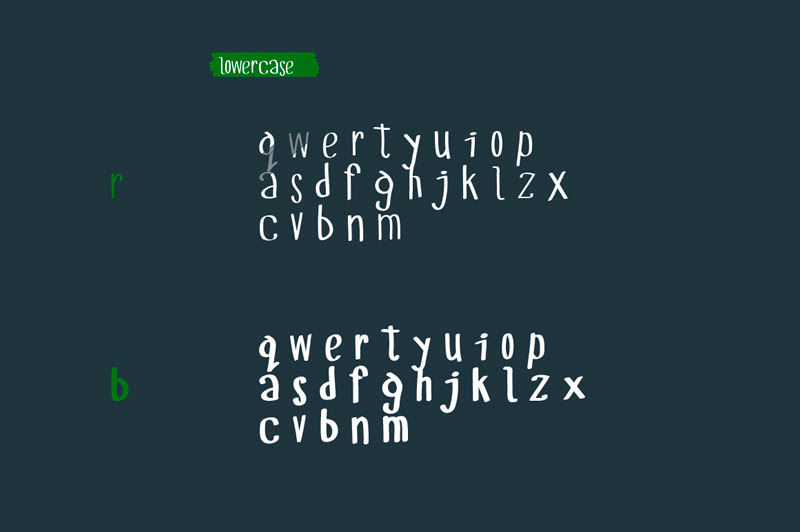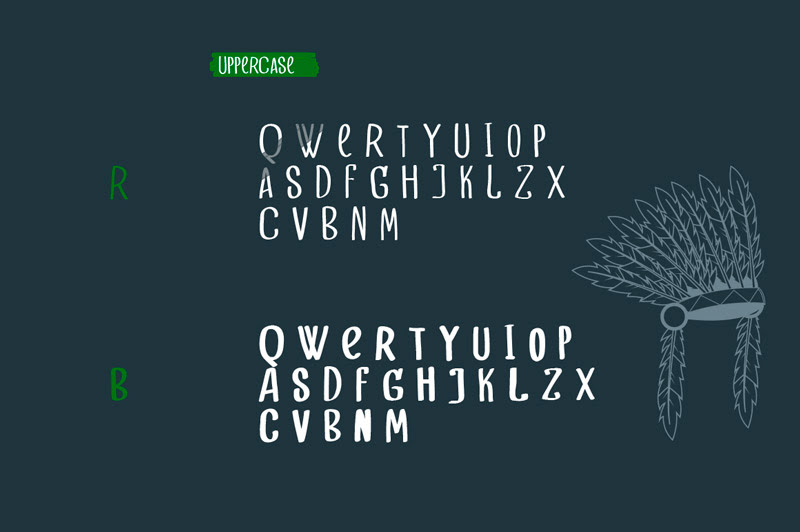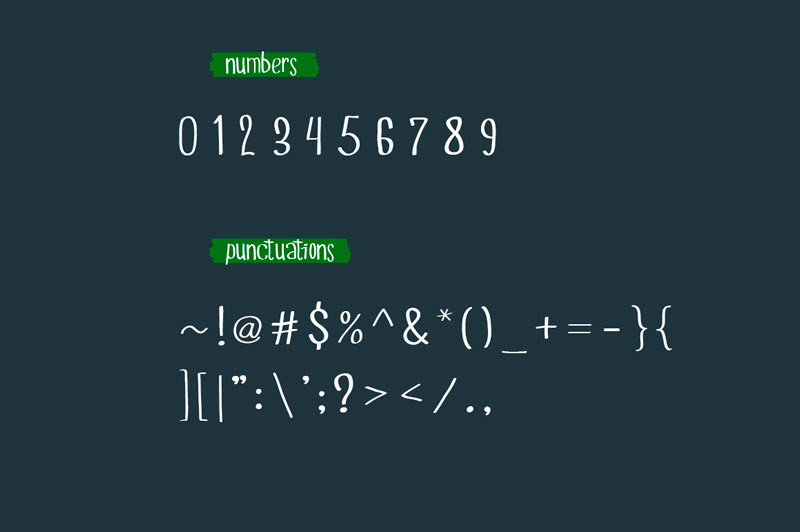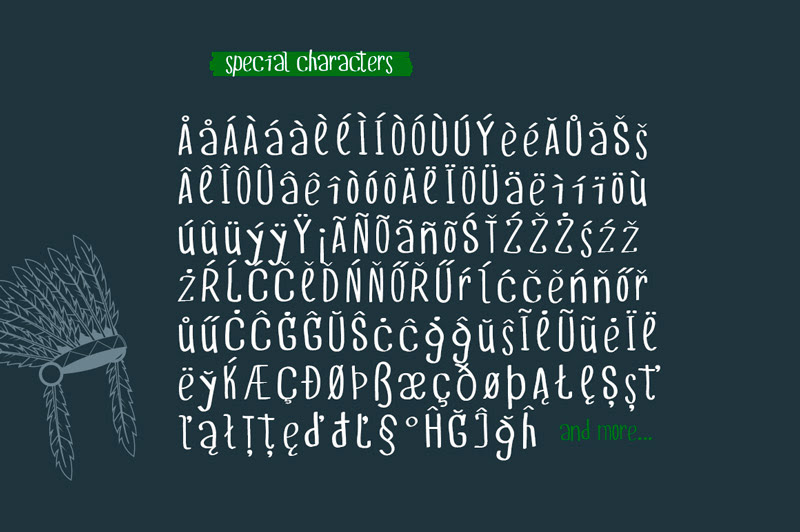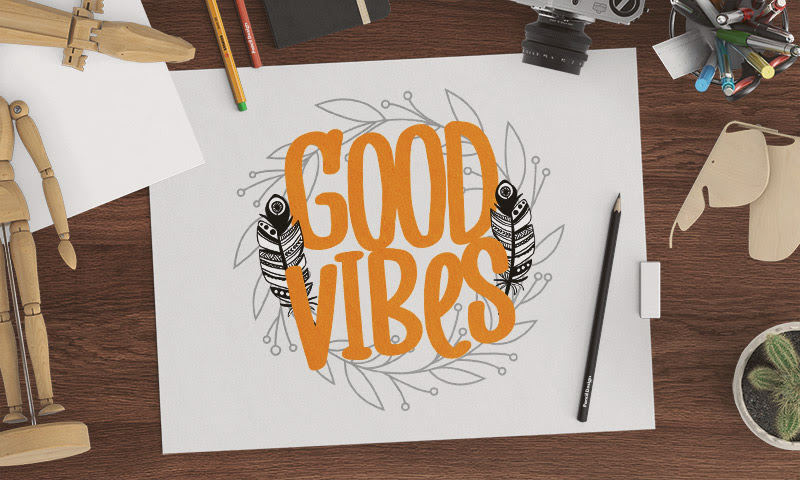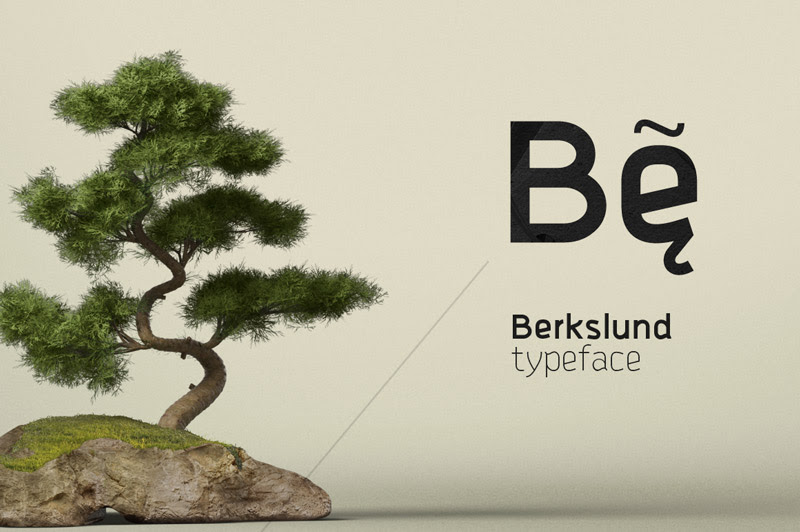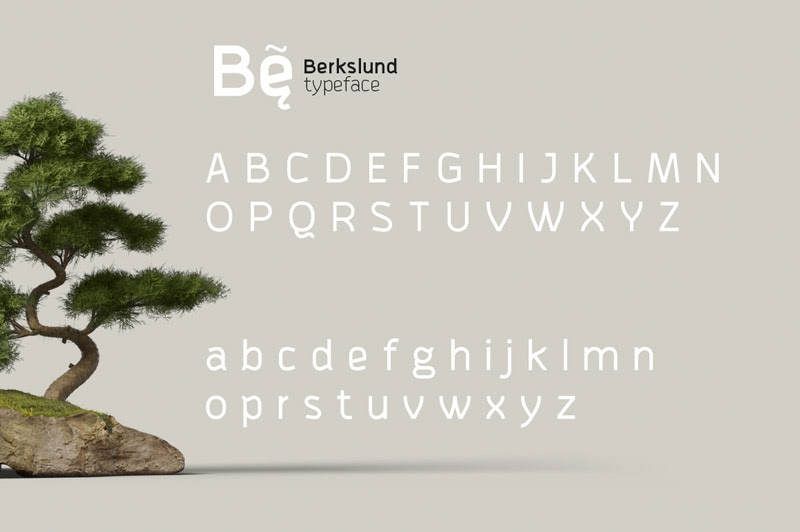
AUGUST BEST FONTS BUNDLE – WINTER BONUS !
Refresh your font library with this incredible August font bundle, featuring a special Winter Bonus! This collection is designed to make your projects feel fresh and exciting, no matter the season. You’ll receive 6 unique font families from NEWFACE. These include Appalachi, Asheron, Berkslund, Higenson, Kraftwied, and Sungent. Each family offers various weights, styles, and looks. Therefore, you gain immense variety for all your design needs.
Unlock 21 Unique Fonts in This August Font Bundle
Let’s explore some of the included fonts. Appalachi is an original hand-lettering typeface. It offers 8 different fonts, perfect for adding a personal touch. Asheron is a modern sans-serif. It brings a clean and professional feel. Berkslund is a bold display font. It grabs attention instantly. Higenson is a versatile script font. It adds elegance and flow. Kraftwied is a unique serif font. It has a vintage charm. Sungent is a playful sans-serif. It brings a friendly vibe.
This comprehensive August font bundle provides endless possibilities. Use these fonts for branding, social media graphics, invitations, websites, and more. The included design kit further enhances your creative workflow. It offers pre-made elements and templates. This saves you valuable time. Elevate your design game with this exceptional offer. Don’t miss out on this limited-time promotion.